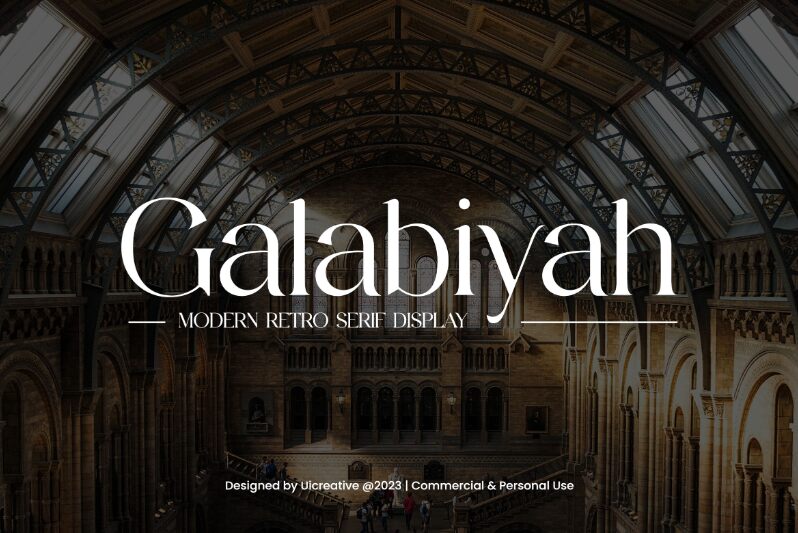
Galabiyah Regular
Galabiyah font by UI Creative delivers an elegant and sophisticated classic appeal with its modern serif elements. Its refined curves and overall gentle nature make it a versatile free serif font that serves any project, personal or commercial.